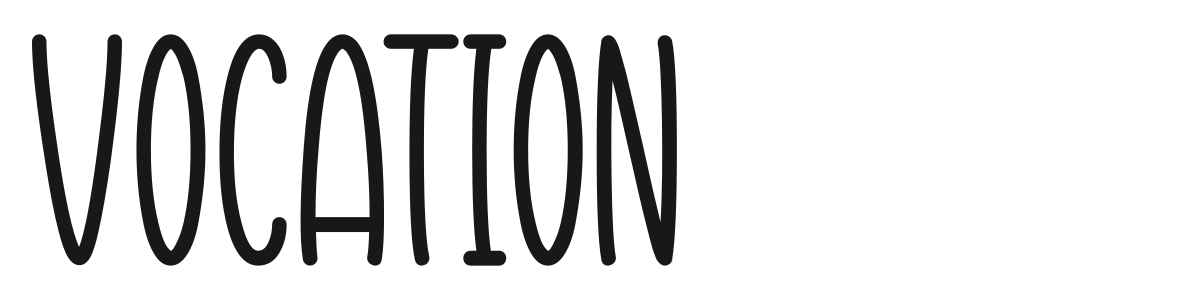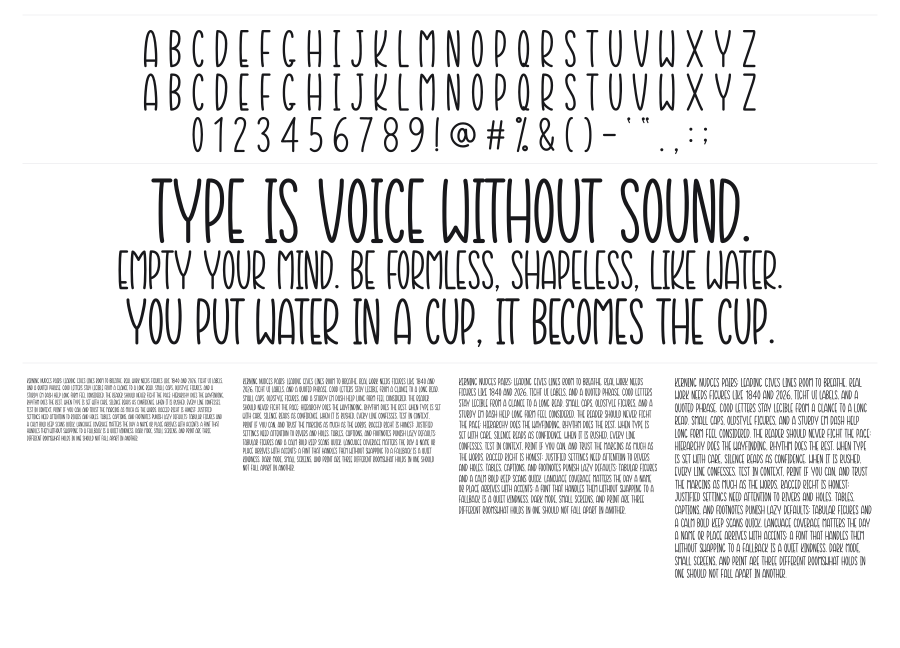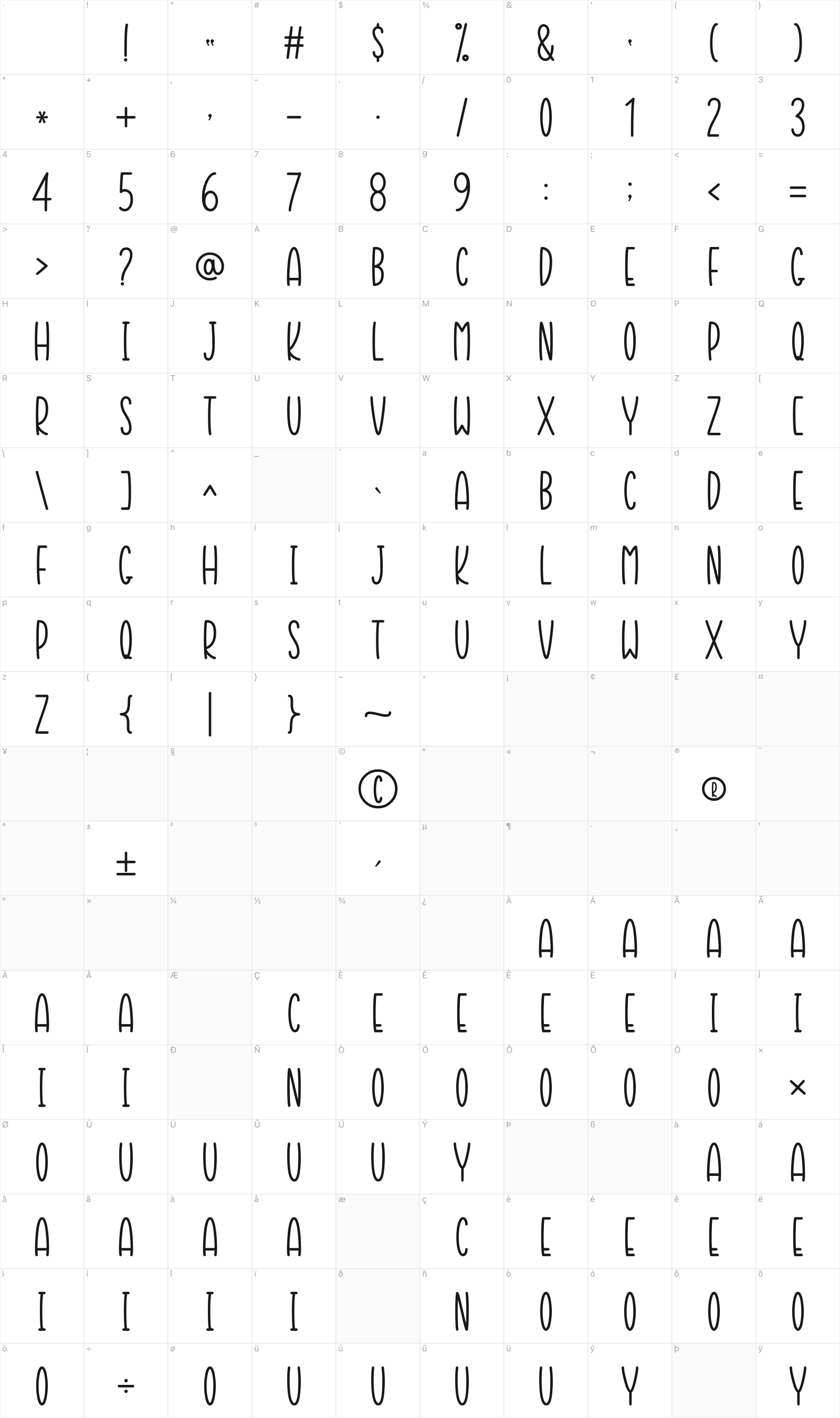
Vocation
Vocation is a tall, narrow rounded sans with a hand-drawn informality baked into every curve and junction. The rounded terminals and subtle stroke irregularity give it a handcrafted warmth without going full script. It suits anything that needs an upbeat, casual voice at headline sizes.